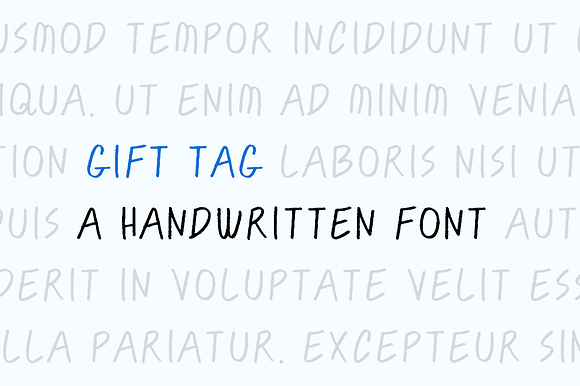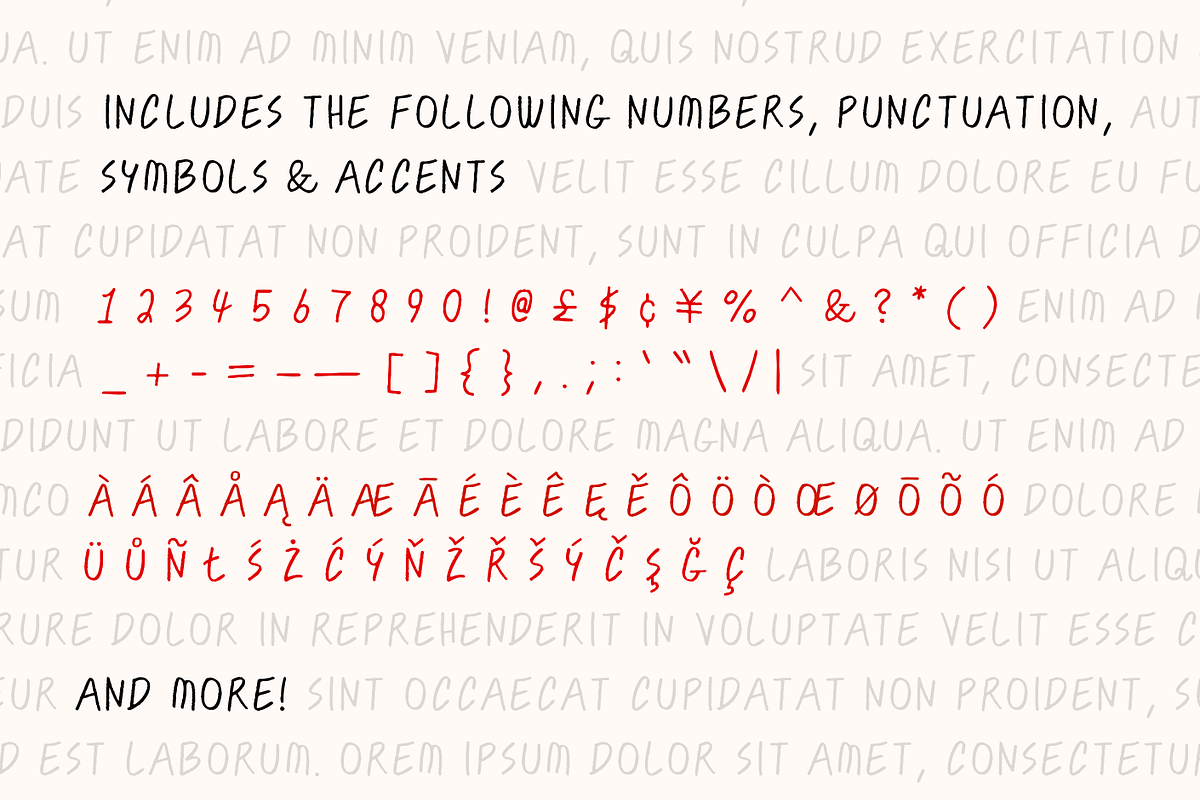
Gift Tag — A handwritten font
An all-caps typeface for you to use in your personal or commercial project
Includes all European glyphs
Gift Tag — A handwritten font by Handy Fonts fits naturally into Branding, posters, packaging, typography.